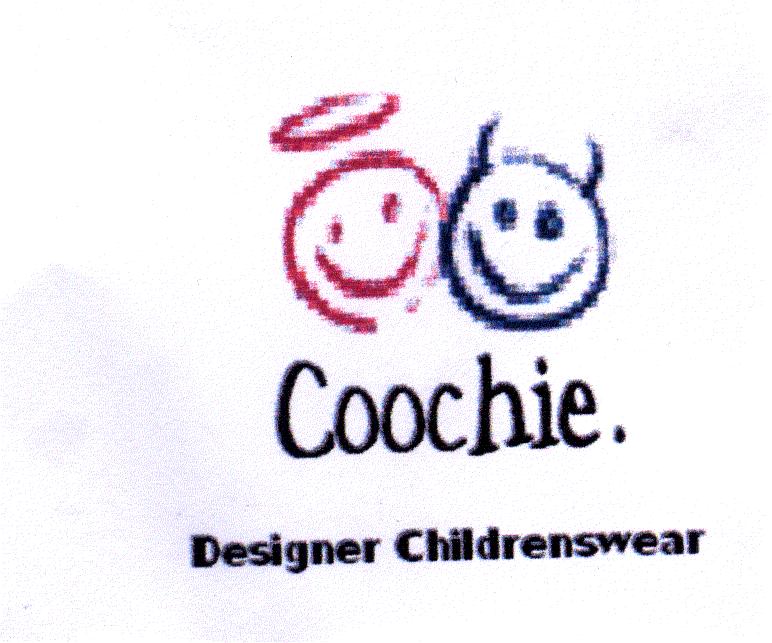
I’ve seen it before Nik and it’s bugging me …. I’ll keep looking, I’m sure I have that.
sorry Nik, no luck. It certainly reminds me of something tho …… it’s the shape of the ‘C’ it’s kinda like biffo …. only different! 😕
Jester is close, with a bit of modification 😕 http://www.dafont.com/font.php?file=jes … asst=alpha
just found the name of font its called spacewoozy… fab name eh 😀
never heard of that Nik lovely name 😀 😀
Try this link http://www.momscorner4kids.com/fonts/sfonts.htm and go to Spacewoozy